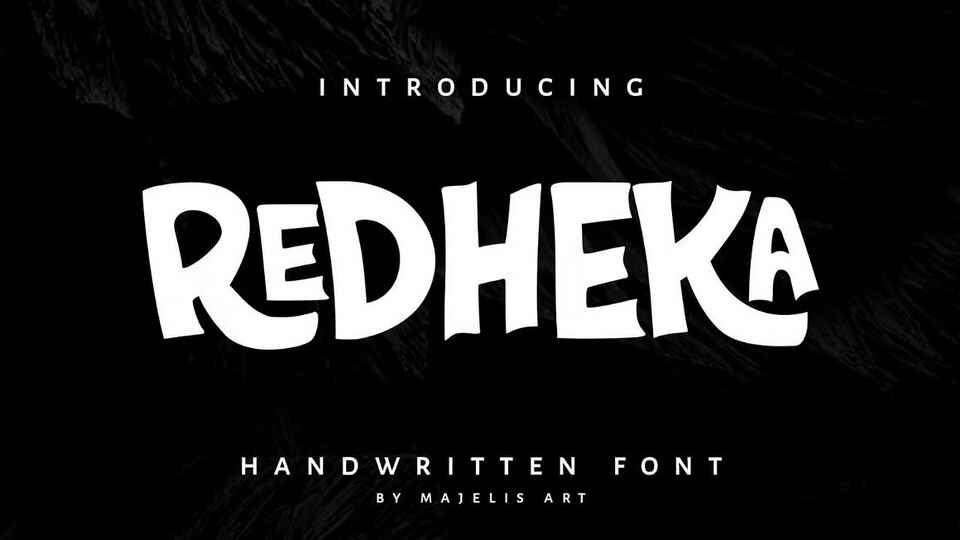
Download Redheka font, a handwritten typeface that we write with very thick thickness and curves that suit for design enthusiasts.
Designer: Fikhry Mus Pratama